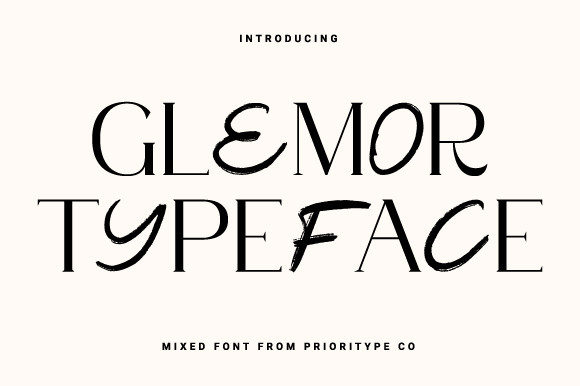
Glemor Font: Where Serif Elegance Meets Modern Chic
Unleash your creativity with Glemor Font, a stylish serif typeface that oozes youthful energy and sophistication. Inspired by the vibrant world of fashion magazines and posters, Glemor strikes a captivating balance between traditional serif shapes and the freedom of handwritten strokes. This unique fusion results in a font that's both timeless and utterly contemporary.
Immerse yourself in a world where classic elegance blends seamlessly with modern flair. Glemor Font opens up a treasure trove of creative possibilities, inviting you to design posters that pop, magazines that captivate, social media posts that sizzle, and landing pages that convert.
Let Glemor Font take you on a journey of visual storytelling, where every word carries weight and every design element speaks volumes. Its meticulously crafted characters exude a sense of sophistication that's sure to leave a lasting impression on your audience.
With Glemor Font, you'll discover a wealth of applications that will ignite your imagination. Create eye-catching headlines that demand attention, craft body text that flows with effortless grace, and design logos that radiate timeless appeal. The possibilities are endless, and the creative journey is yours to explore.
Don't settle for ordinary fonts that blend into the background. Embrace the distinctive charm of Glemor Font and watch your designs transform into works of art. Its unique personality and undeniable beauty will elevate your creative projects to new heights, leaving your audience spellbound.
Join the ranks of designers, marketers, and creatives who have discovered the power of Glemor Font. Let your imagination soar, explore the depths of your creativity, and produce designs that resonate with your audience. Embrace the allure of Glemor Font today and embark on a creative journey like no other.